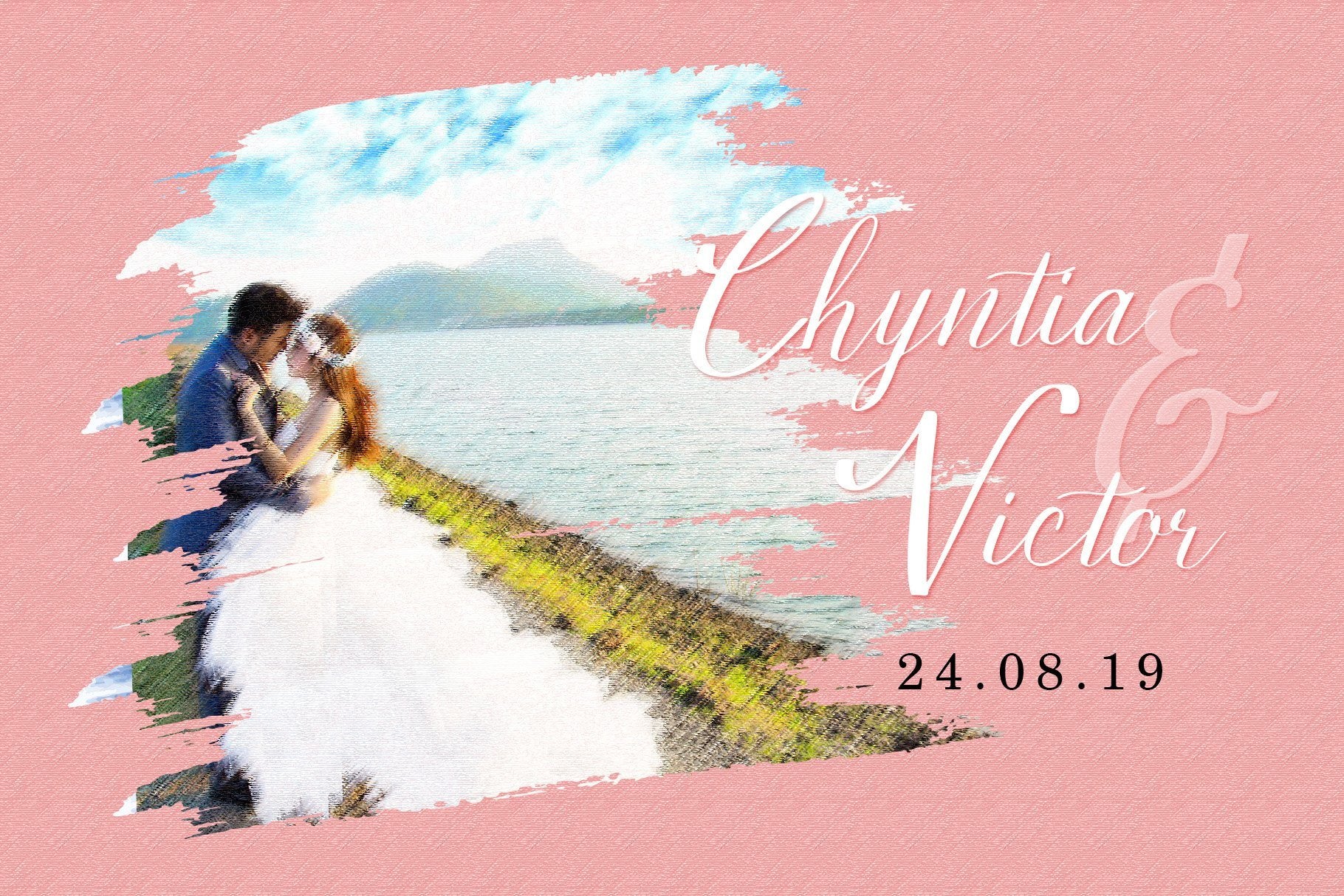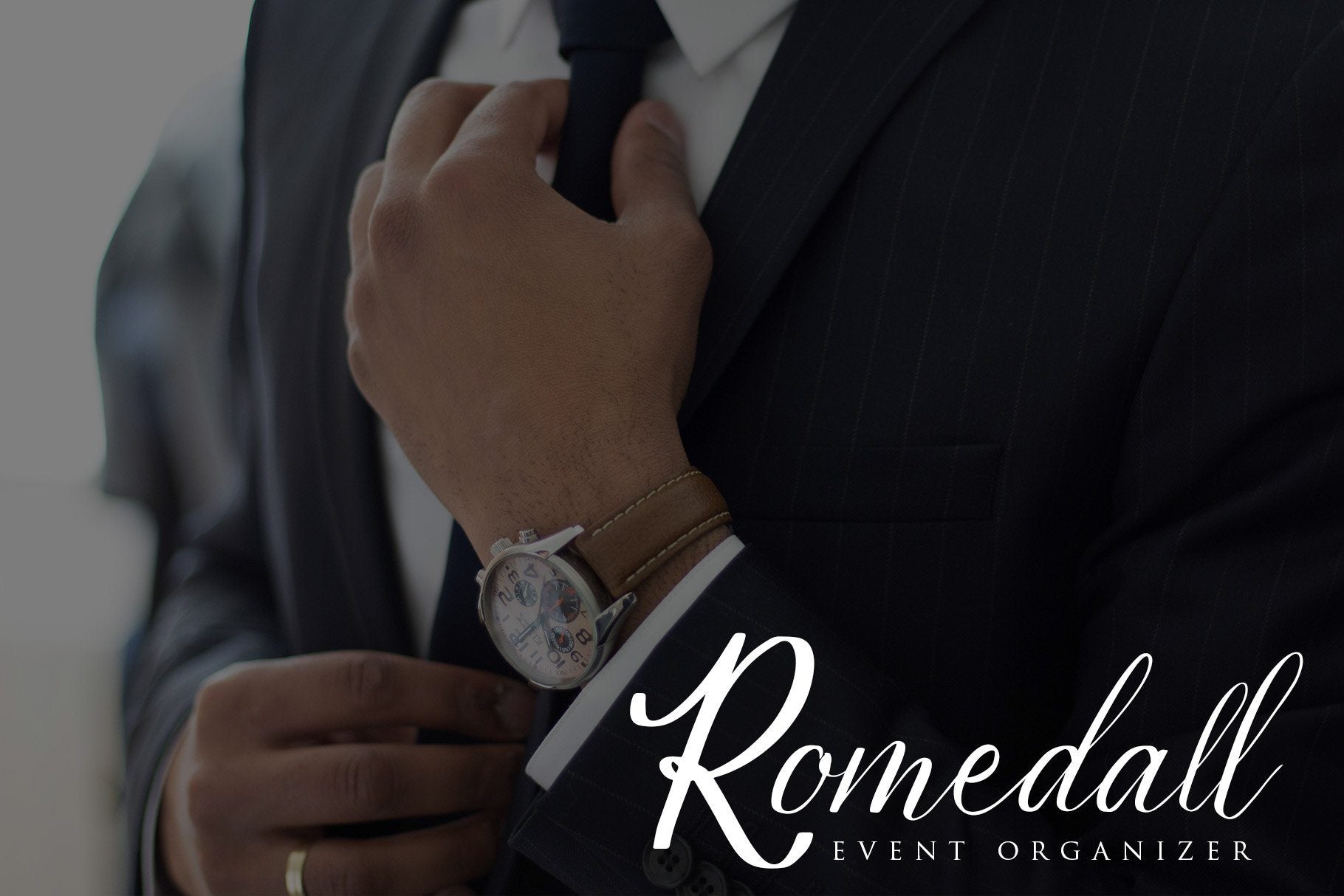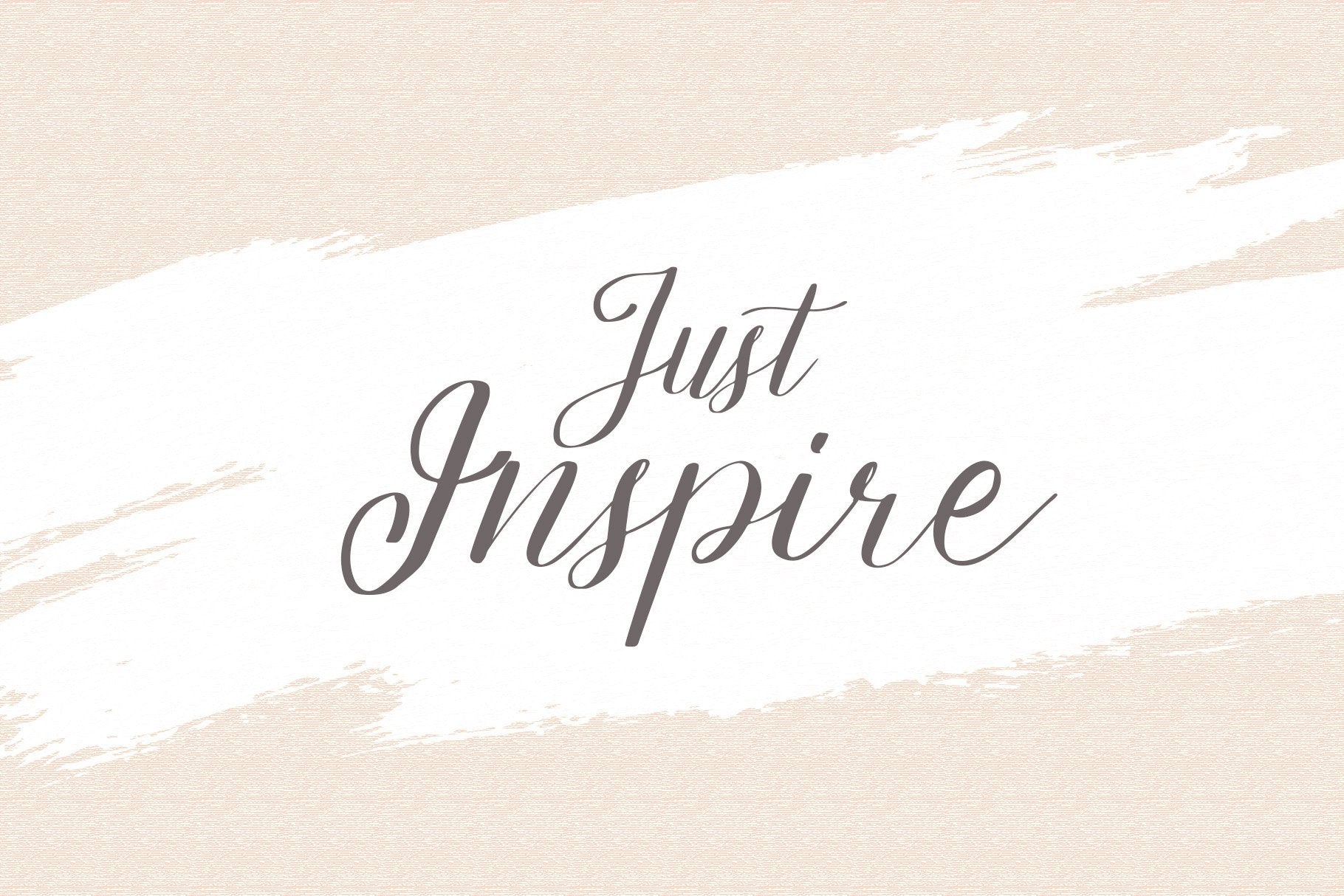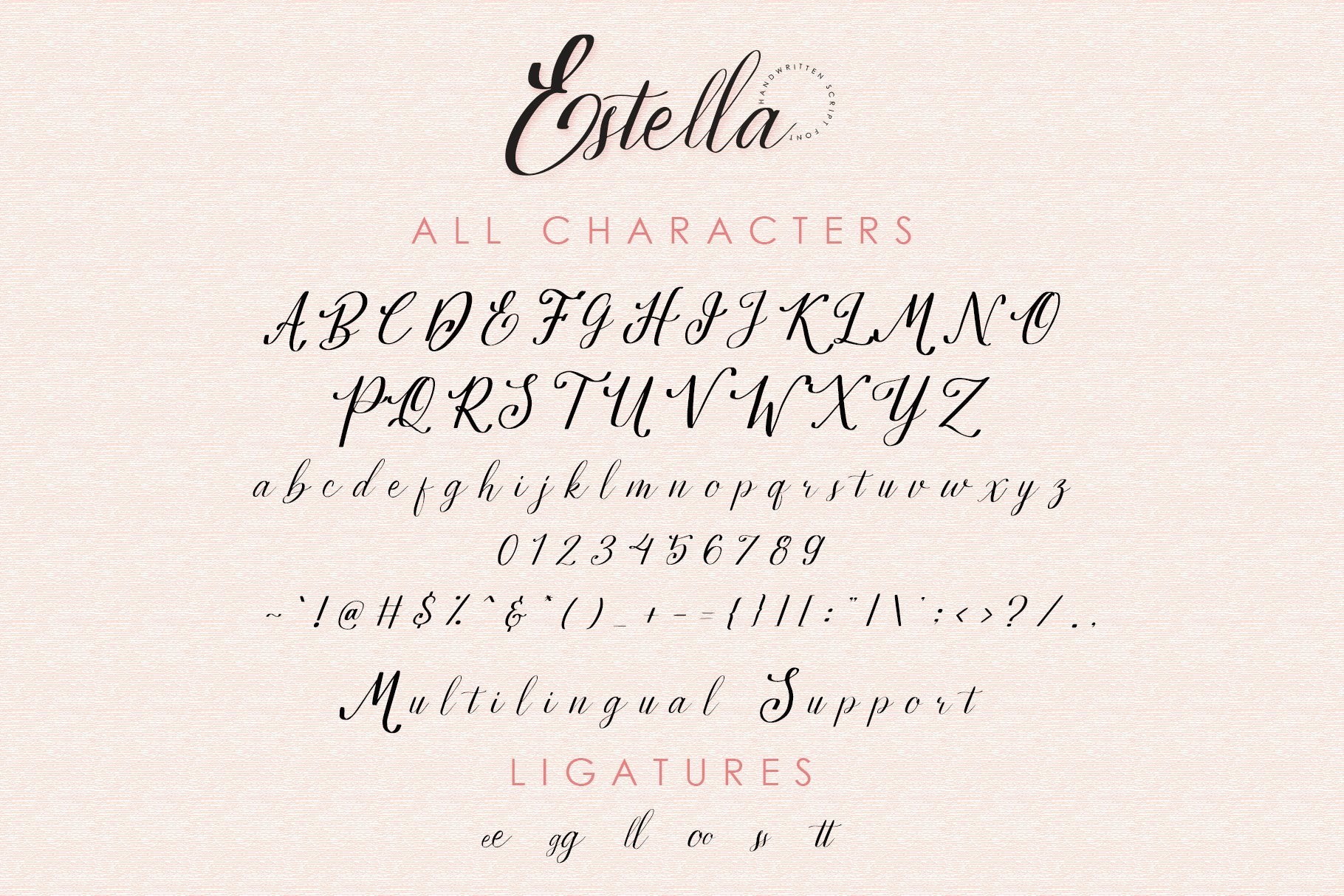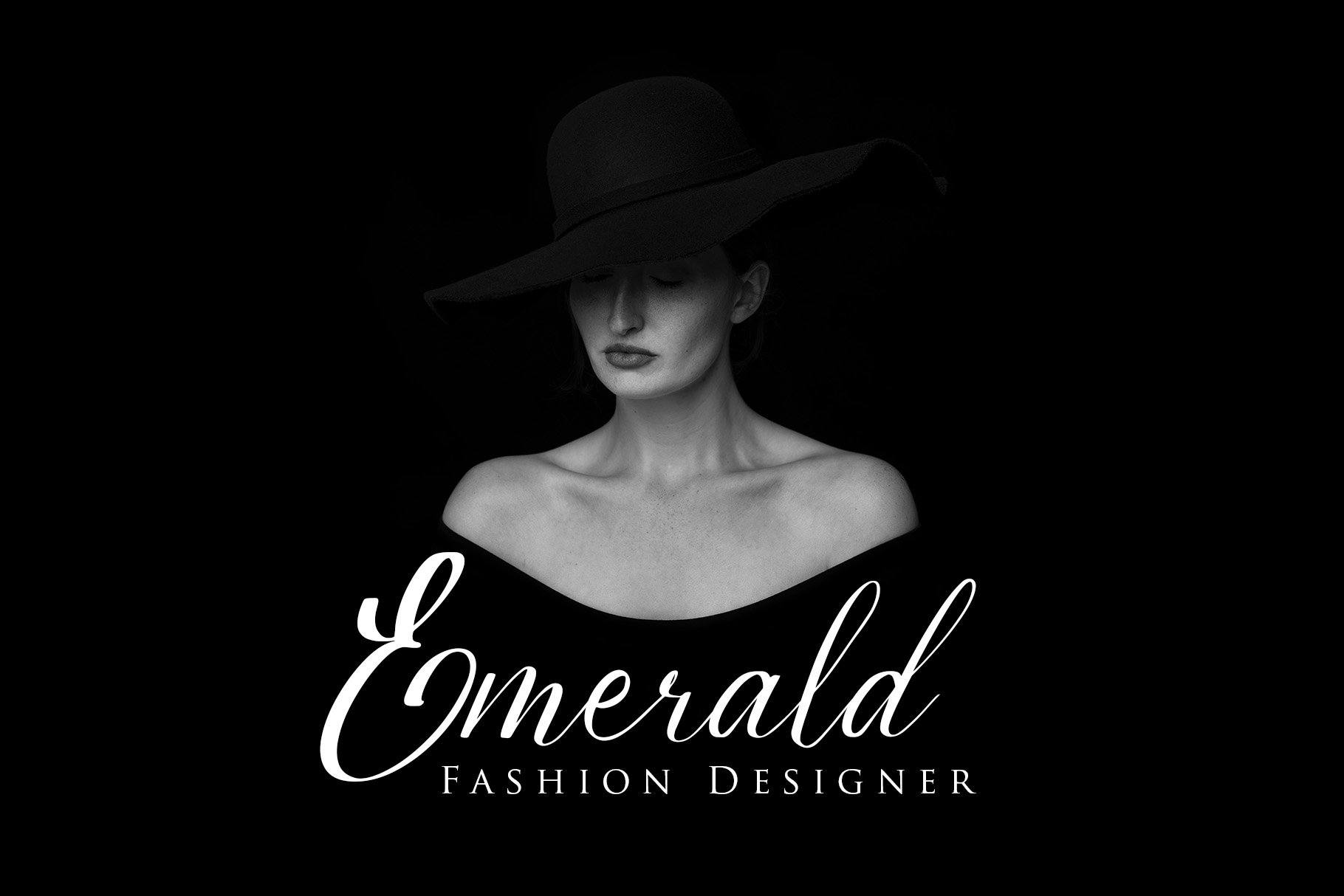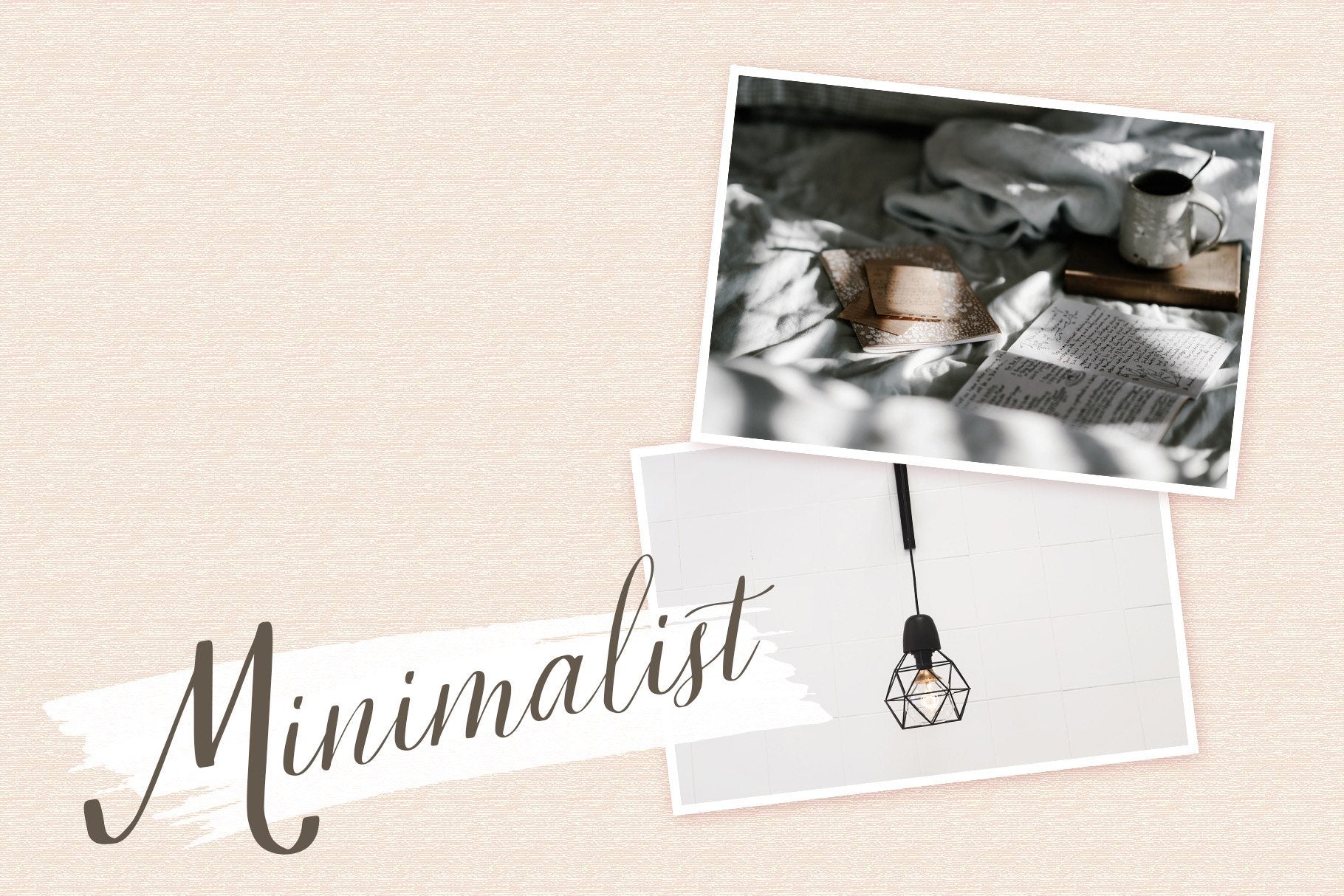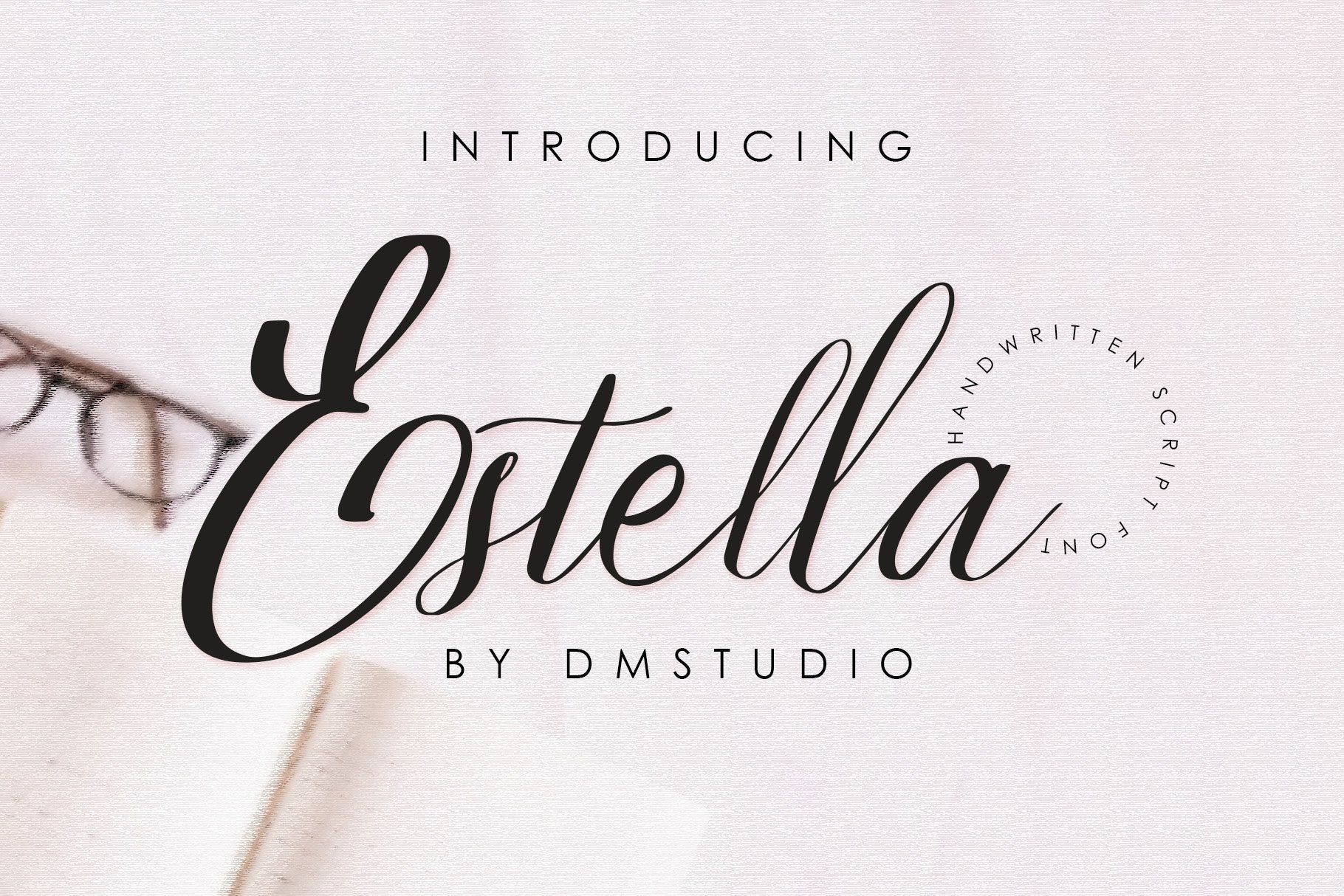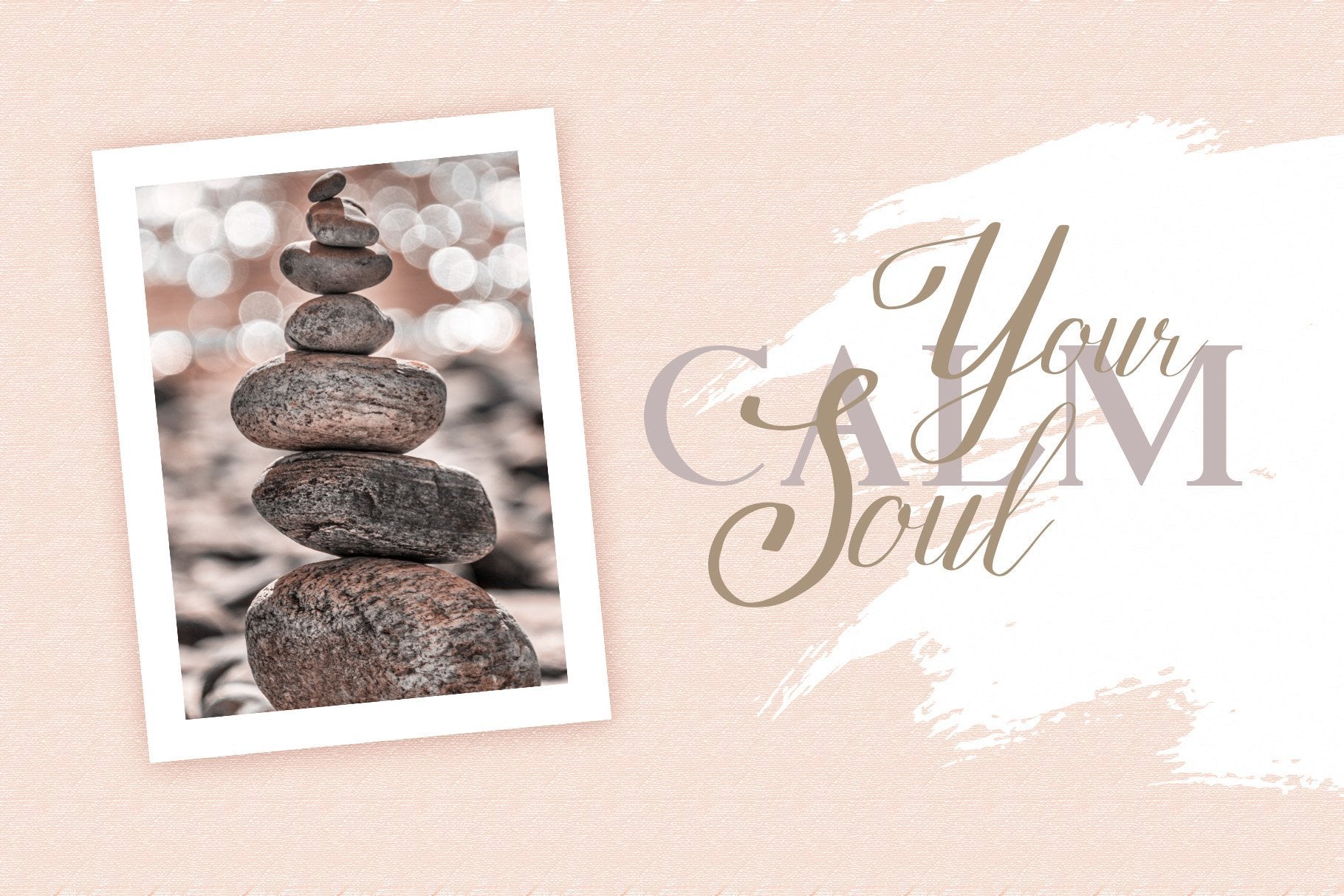
Estella Handwritten Font
About Estella Handwritten Font
Estella the handwritten script font Great choice and very easy to use for quotes, wedding card, invitation, website, promotion and the other projects. Highlights : Contains uppercase, lowercase, numeric and symbols With extra ligatures Support multilingual Files Estella OTF,TTF,WOFF Thank for every support, please kindly contact us for any questions. Hope you like it & Stay Creative!